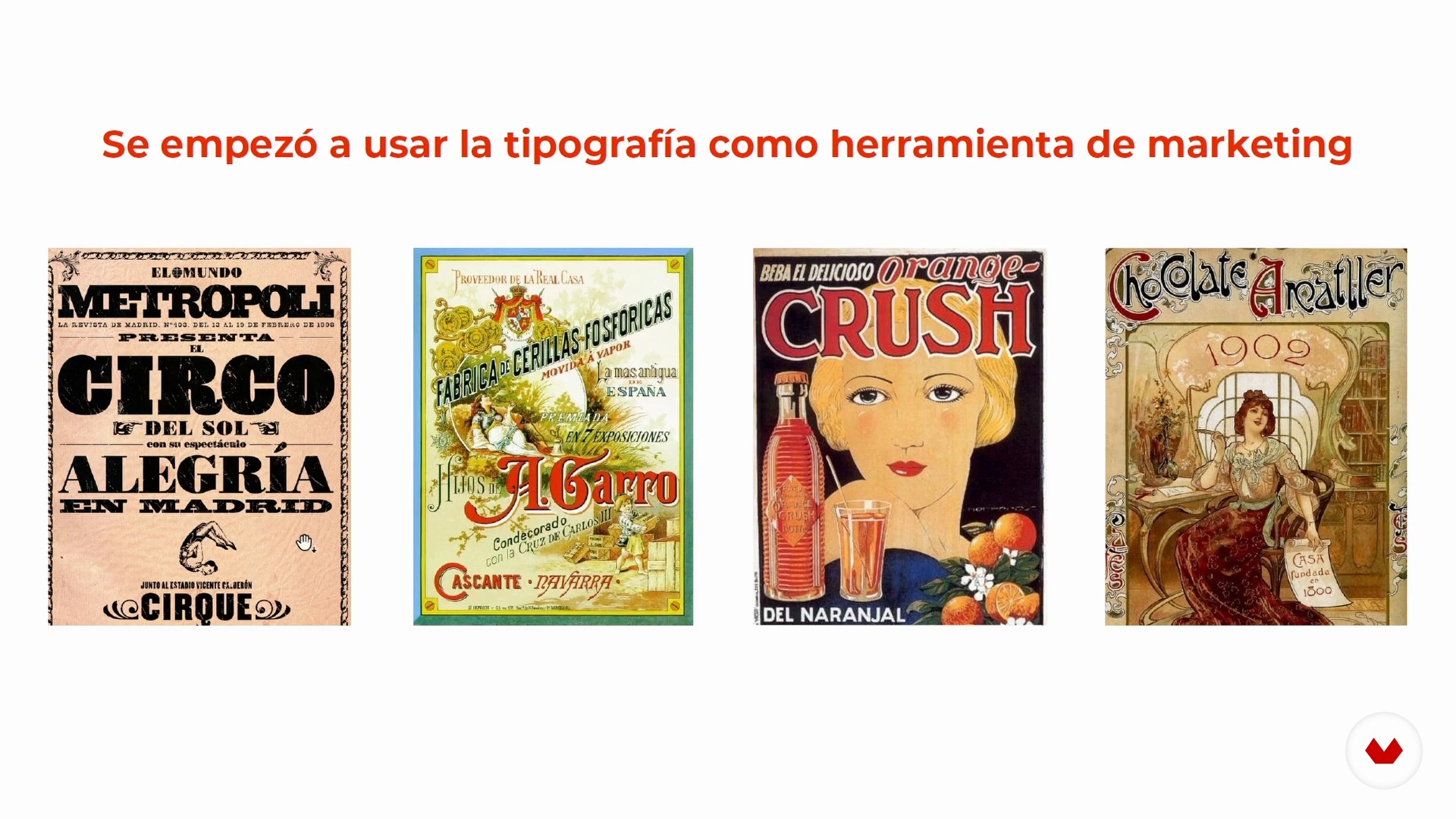
History and evolution of typography
About the video: History and evolution of typography
“I will start by talking a little about history. I will briefly review the theory of typography and its evolution over time. ”
In this video lesson Dawlym Murillo Jaramillo addresses the topic: History and evolution of typography, which is part of the Domestika online course: 3D Font Design with a Metallic Finish. Learn three-dimensional modeling techniques in Cinema 4D to add a realistic and vibrant touch to your lettering.
“In this lesson, we will take a tour through the history of typography and how it has evolved over time. But first, I'm going to explain what we'll be developing in this course. We are going to make two letterings and a destroyed typography. In the first lettering, We will add a volume and give it a liquid finish in Cinema 4D. In the second lettering, We will give it a metallic finish simulating a wavy rod. And in our third project, We will destroy a word, rearrange it and play with perspective and depth. With these three projects, You will have several tools and types of modeling that will ...”